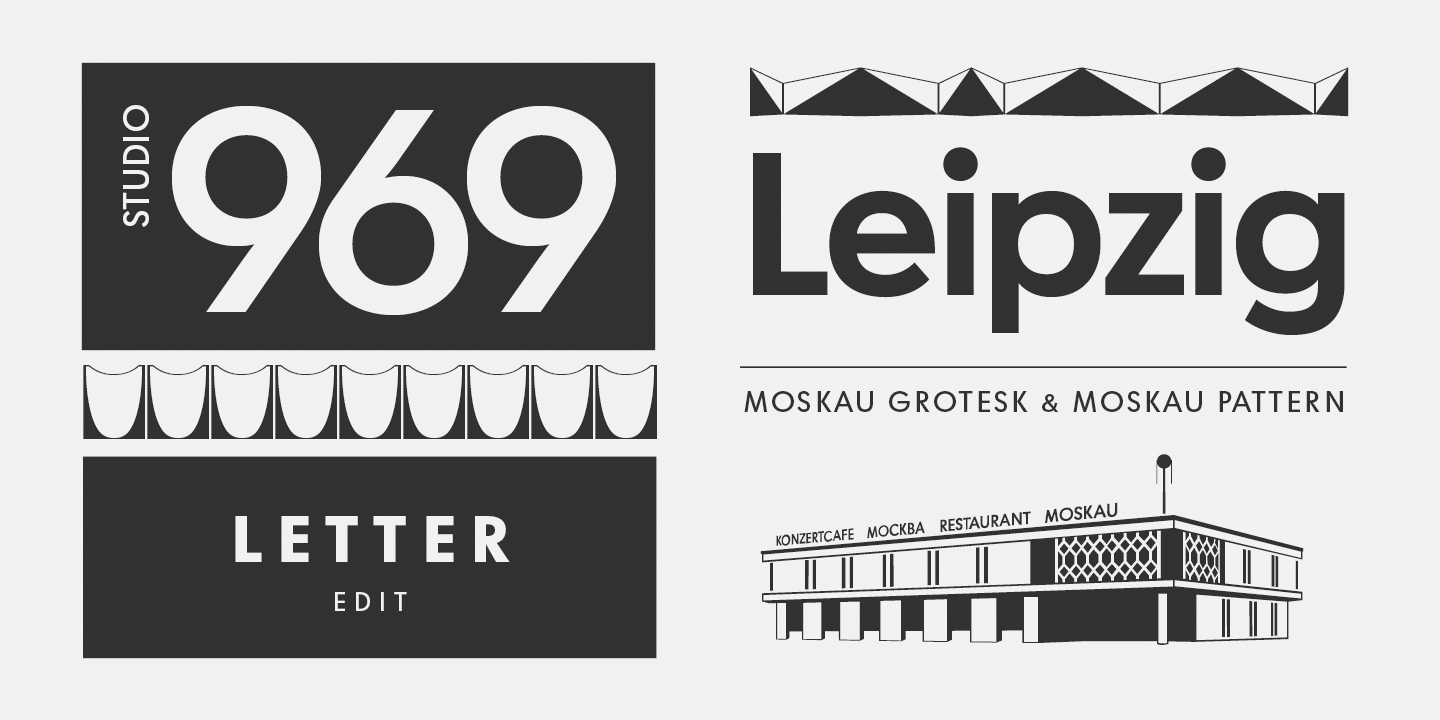
Moskau Grotesk Font is ideal for various design applications including Russian cultural center branding, Eastern European restaurant materials, Soviet-inspired poster designs, historical documentary titles, Cyrillic typography projects, communist heritage exhibitions, Cold War era recreations, and authentic Eastern European communications that require Russian sophistication and grotesque elegance.
What makes Moskau Grotesk Font truly exciting is its powerful embodiment of Russian typographic heritage and the bold aesthetic principles that defined Soviet graphic design, capturing the stark beauty and utilitarian strength of grotesque typography that emerged from revolutionary design movements and socialist realist artistic traditions. This commanding typeface features bold, geometric letterforms with subtle Cyrillic influences that evoke images of Red Square, constructivist posters, and the powerful graphic design that communicated revolutionary ideals through uncompromising visual strength and ideological clarity. The font's revolutionary character reflects the determination and bold vision that characterized Soviet design philosophy, making it perfect for brands that want to communicate Russian authenticity, revolutionary strength, and the powerful aesthetic that defined an era of dramatic social and artistic transformation. Its grotesque appearance creates immediate associations with Russian heritage and constructivist design.
The Moskau Grotesk Font family includes multiple weights and revolutionary variations designed to enhance Eastern European communication. The collection features Light, Regular, Medium, Bold, and Black weights, each maintaining the font's characteristic Russian appeal while offering different levels of revolutionary presence. The family also includes alternate characters with varying constructivist effects, geometric elements that simulate Soviet design principles, and stylistic sets that create powerful text arrangements reflecting the strength of revolutionary aesthetics. Additional features include contextual ligatures and Russian sets that create authoritative, bold arrangements perfect for cultural and historical applications.
Cultural and historical professionals consistently choose Moskau Grotesk Font Free Download for projects requiring authentic Russian character and grotesque credibility. The font's revolutionary nature makes it particularly effective for cultural institutions, historical organizations, and educational projects targeting audiences who appreciate Russian heritage and Soviet design history. Its excellent impact and commanding presence ensure effective communication while maintaining the distinctive Russian character that conveys cultural authority and historical authenticity.
The advanced OpenType capabilities of Moskau Grotesk Font include contextual alternates, stylistic sets, and comprehensive character support that accommodates Cyrillic terminology and Russian expressions while preserving the font's authentic grotesque character. The technical precision ensures consistent revolutionary appearance across different cultural applications and historical platforms.
For creative professionals seeking a typeface that embodies genuine Russian heritage and grotesque sophistication, Moskau Grotesk Font offers unparalleled revolutionary appeal and constructivist elegance. Its ability to convey Russian authority while maintaining functional communication makes it invaluable for cultural institutions, historical projects, and educational organizations. The font's distinctive Russian character ensures memorable revolutionary impact across all applications, creating powerful visual identity systems that celebrate the bold aesthetic principles of Soviet design and the enduring influence of Russian typographic traditions that continue to inspire contemporary graphic design and cultural expression.